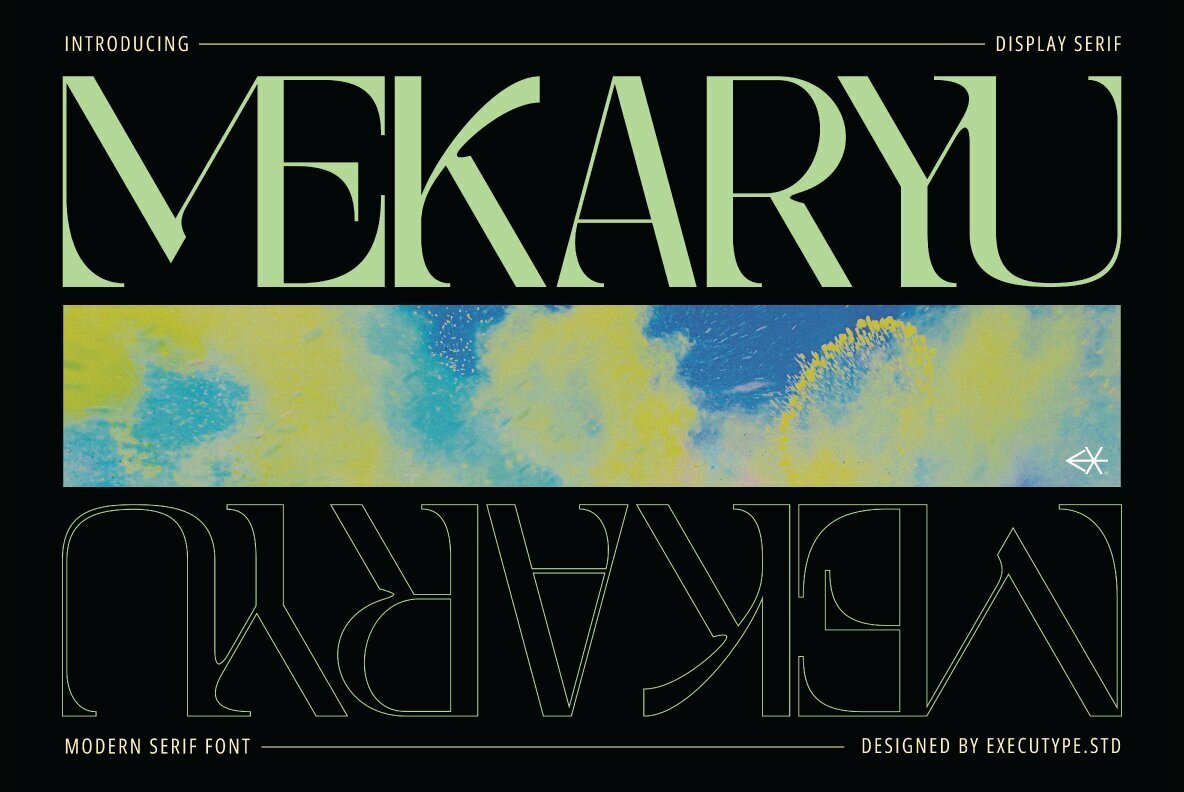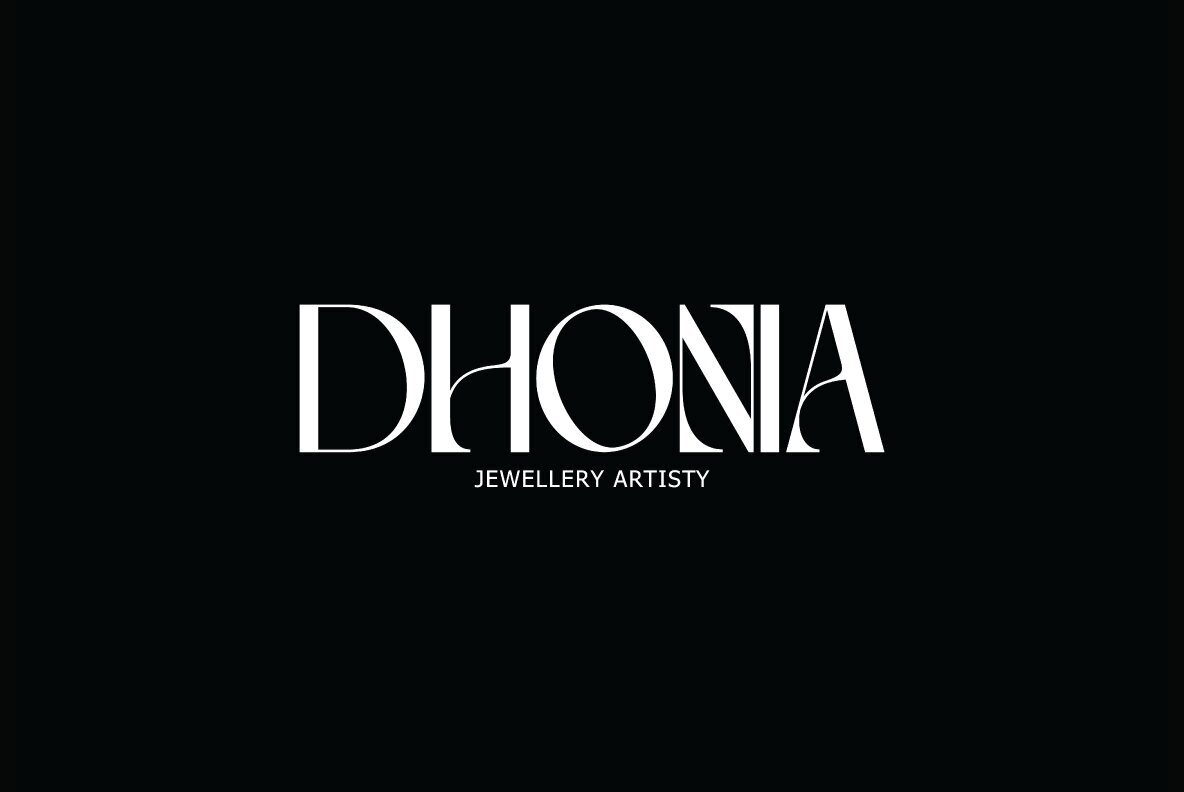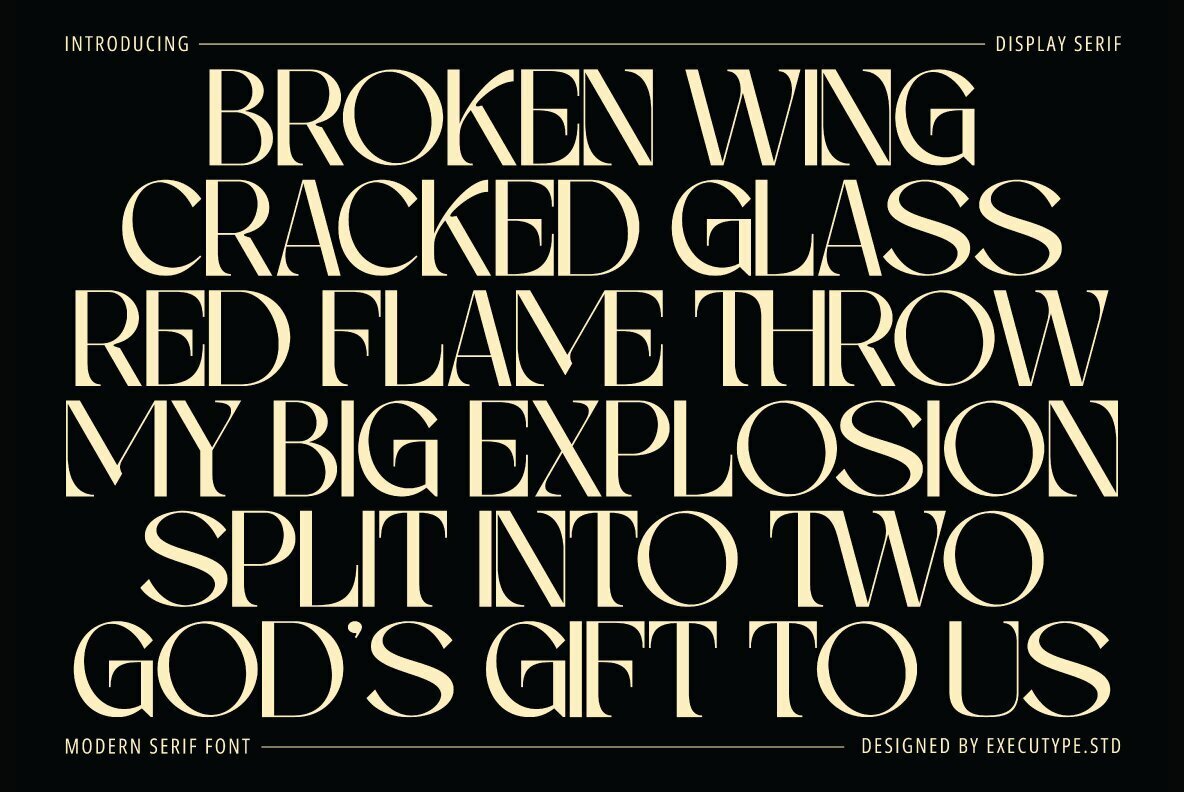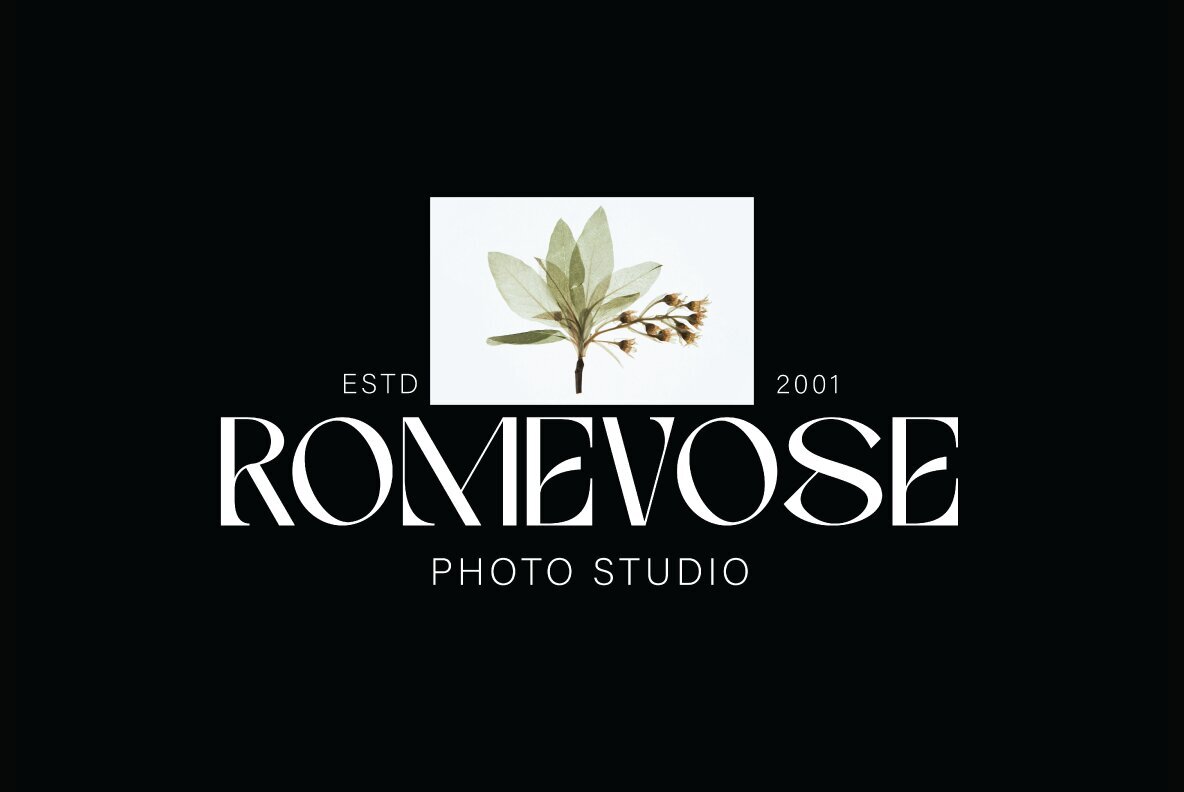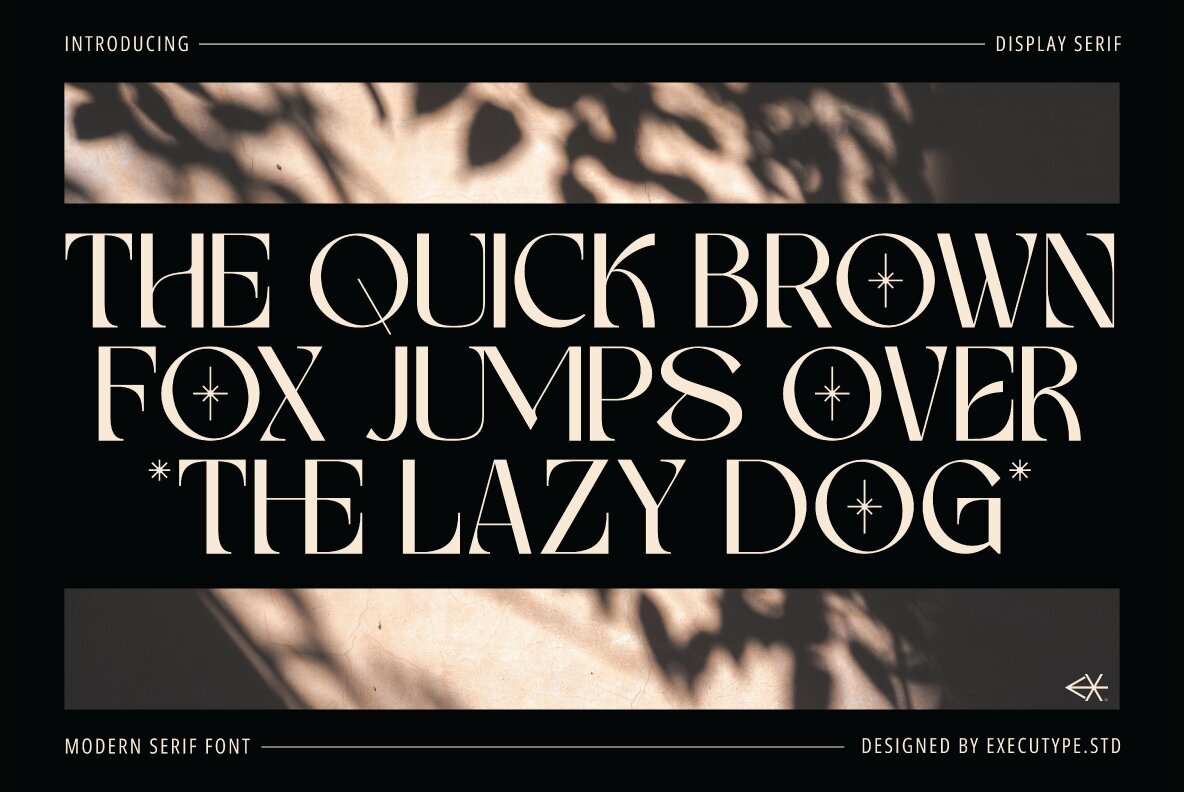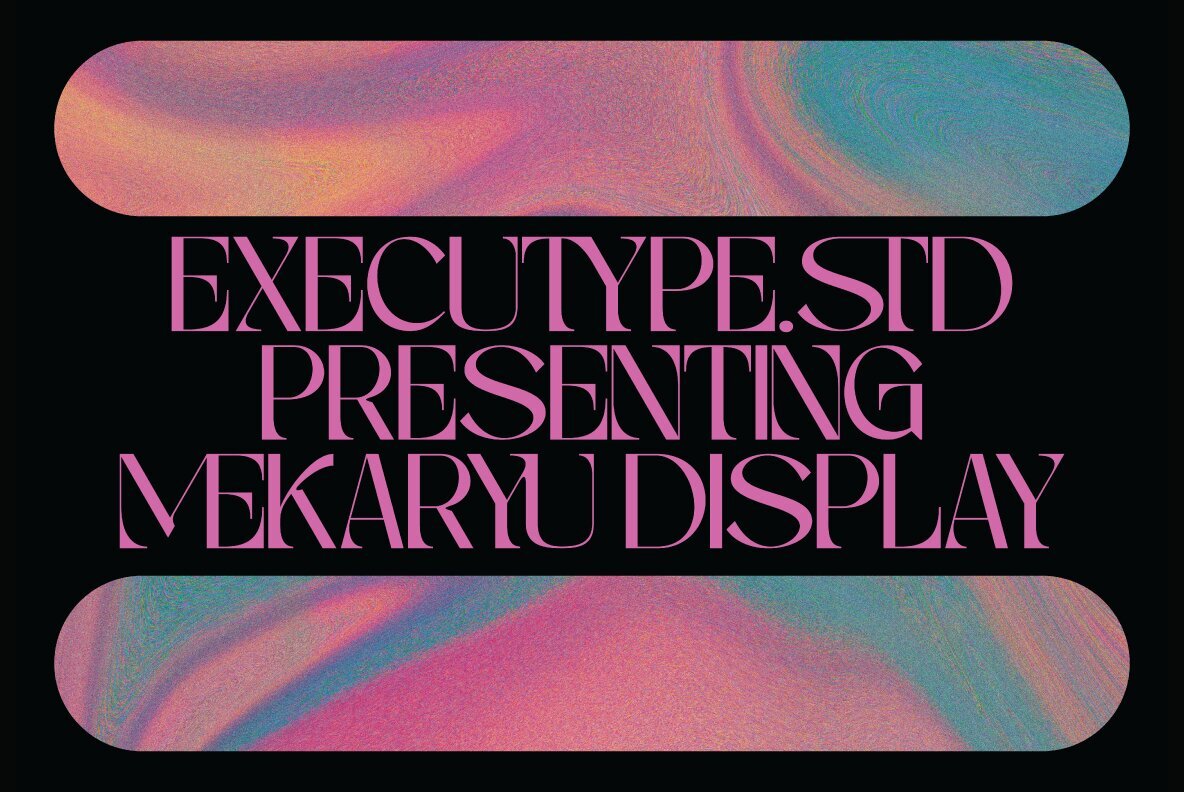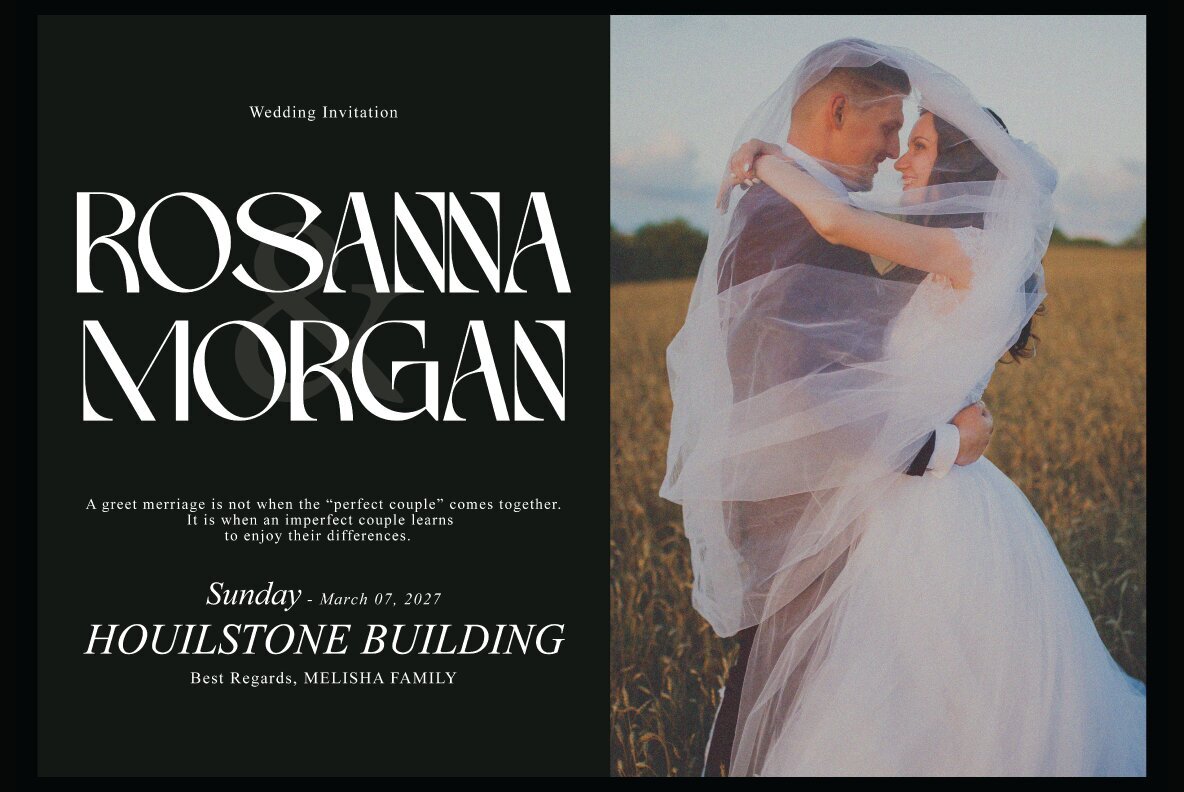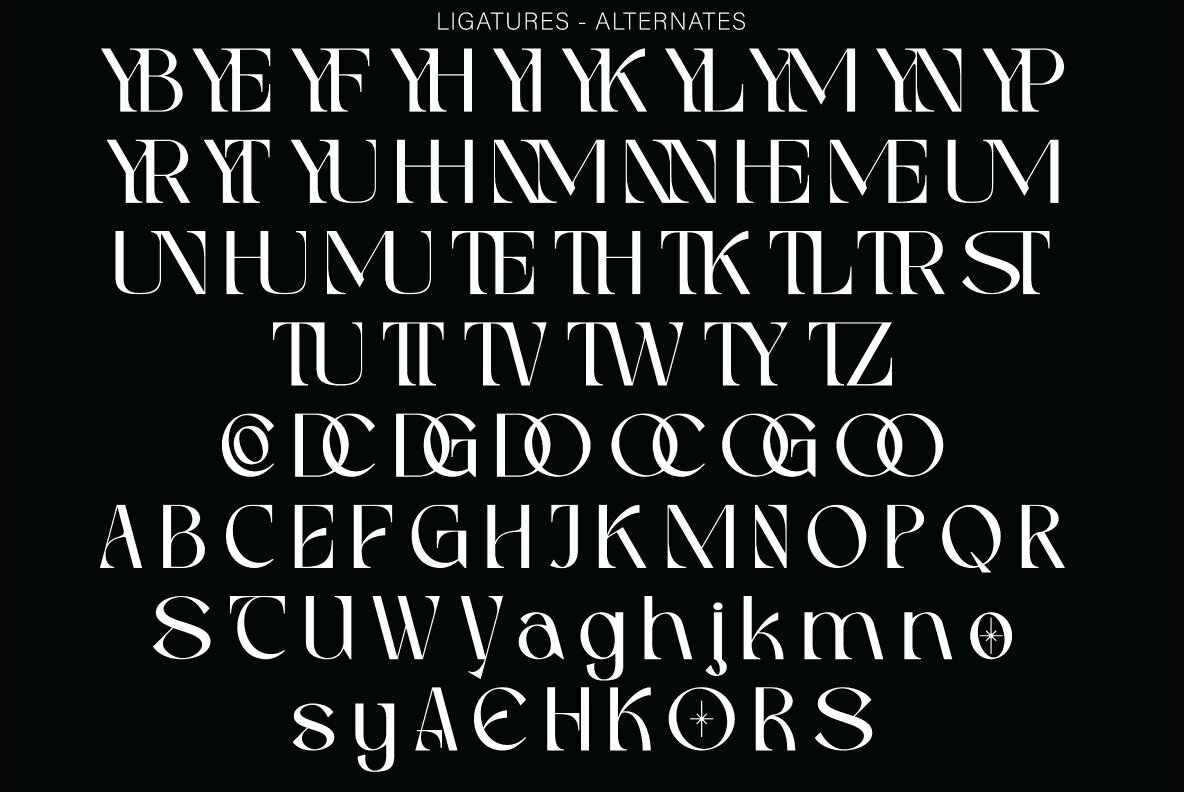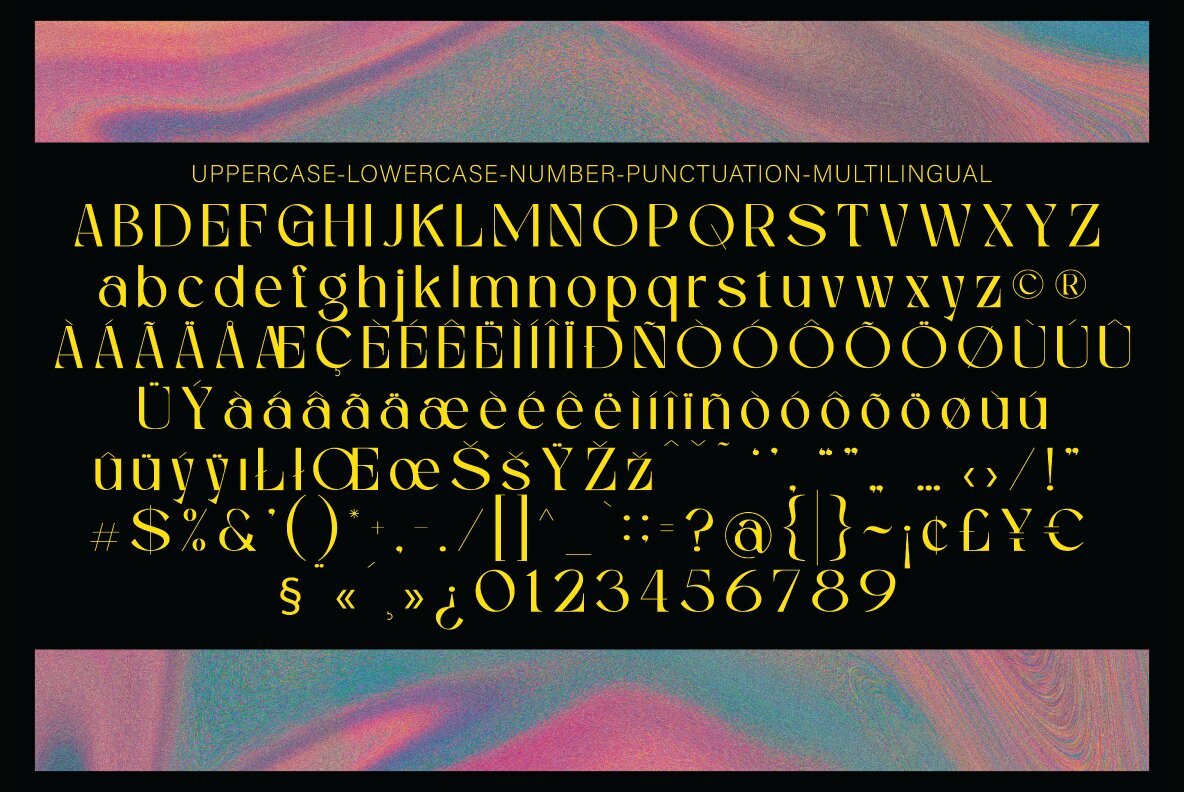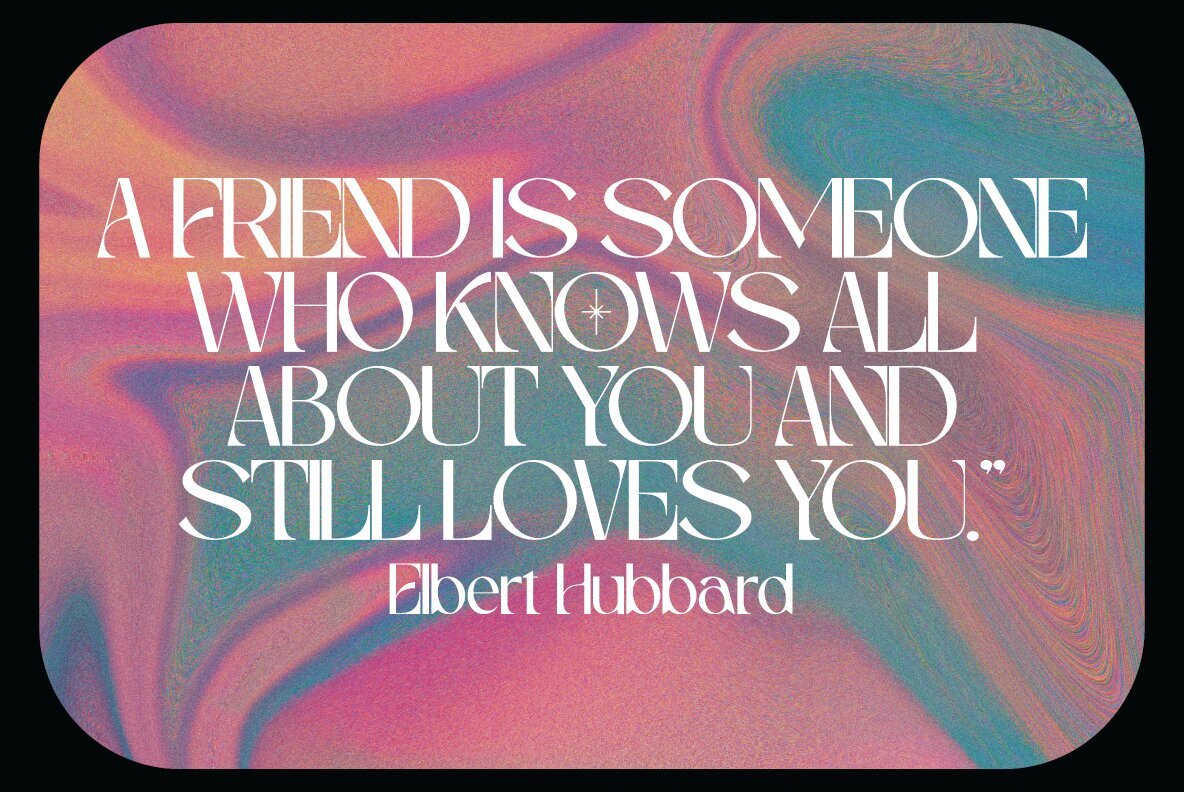
Mekaryu Font
Mekaryu Display Serif Regular
Mekaryu Display Serif is a distinctive choice for those seeking a contemporary serif with a strong personality. With its expressive style and playful baseline, it excels in applications ranging from greeting cards and branding materials to business cards and posters. Its structure captures attention while maintaining elegance, making it ideal for both personal and professional use. This typeface stands out with its bold, modern display quality, harmonizing aesthetic appeal with functionality. Its triangular serifs and unique letter shapes perform admirably in display sizes, yet remain highly legible at smaller text sizes. The design elements of Mekaryu Display Serif are particularly effective in logo creation and editorial projects.Mekaryu Display Serif: A Modern Typeface with Impact